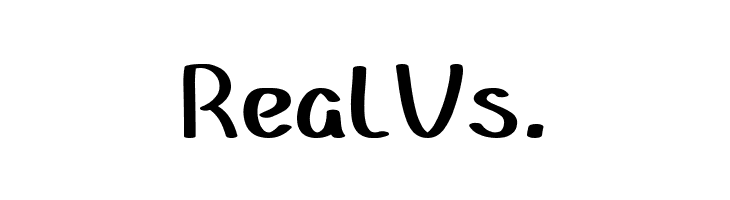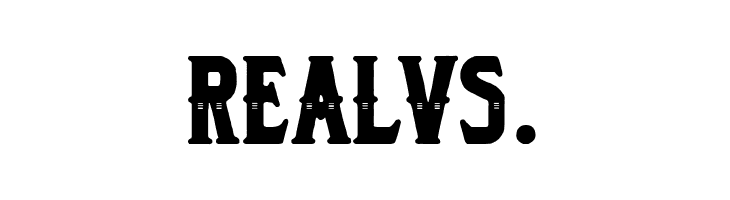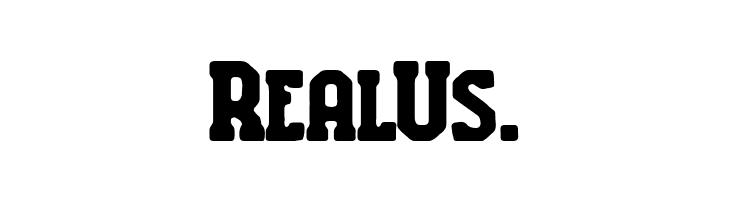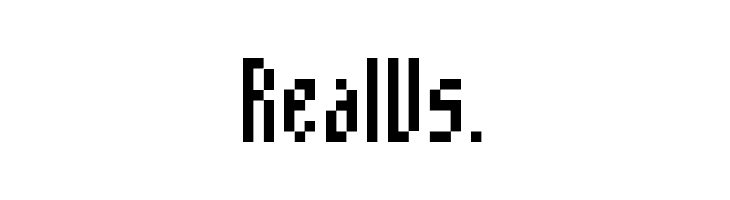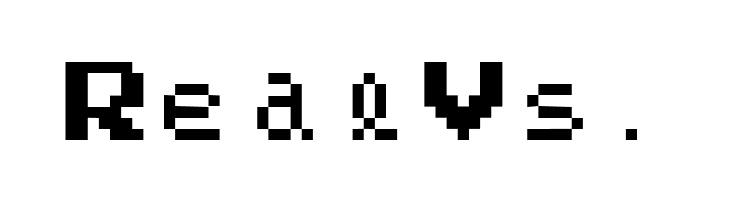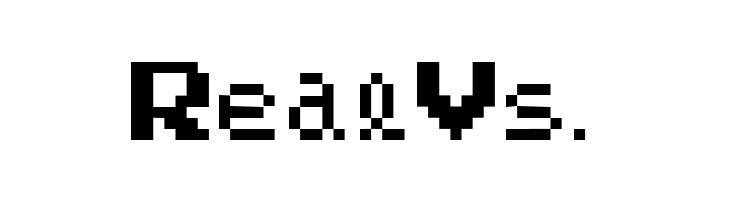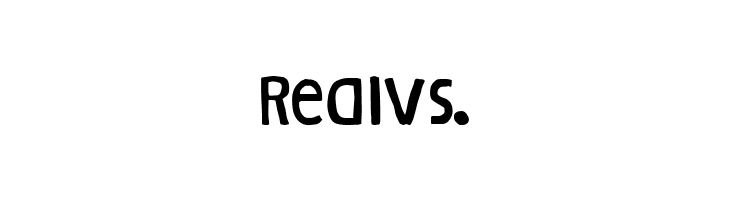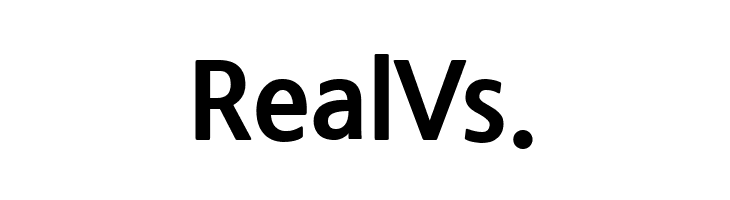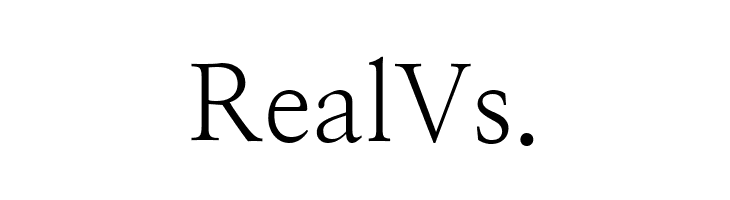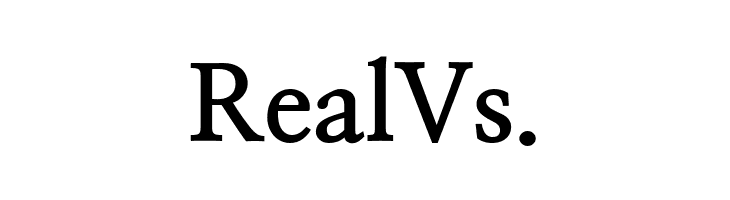
A bold, monospaced font perfect for coding and technical documentation.
A bold, modern sans-serif font with uniform weight and minimal contrast.
A classic serif font with elegant, refined strokes and balanced proportions.
A classic serif font with elegant strokes and balanced proportions.
A bold serif font with sharp serifs and a strong, authoritative presence.
A playful, hand-drawn font with exaggerated, uneven strokes and a whimsical flair.
A decorative, fantasy-inspired font with ornate serifs and flourishes.
A playful, handwritten-style font with bold, rounded characters.
A bold, distressed font with a vintage, textured style.
A bold, dripping font with a dramatic and edgy style.
A bold, cursive font with a flowing, handwritten style.
A bold, vintage-inspired font with a rugged, biker aesthetic.
A bold, vintage-inspired font with strong, geometric characters.
A bold, industrial-style font with geometric and mechanical elements.
A bold, textured font with a rugged, stone-like appearance.
A bold, angular font with a futuristic and sporty style.
A bold, dynamic font with a modern, futuristic style and tight character spacing.
A playful, bold font with rounded edges and a whimsical style.
A playful and bold font with rounded, whimsical characters.
An elegant script font with flowing, cursive strokes and ornate details.
A playful, handwritten font with smooth, rounded edges and a casual style.
A graceful script font with flowing, cursive letterforms and a handwritten aesthetic.
A playful, hand-drawn font with rounded, organic shapes.
A clean, modern monospaced font with uniform character width and minimalist design.
A bold, monospaced font with a clean, modern design and uniform spacing.
A playful, sketch-like font with bold, jagged strokes.
A flowing, cursive font with a handwritten style.
A graceful script font with flowing, elegant strokes and a handwritten style.